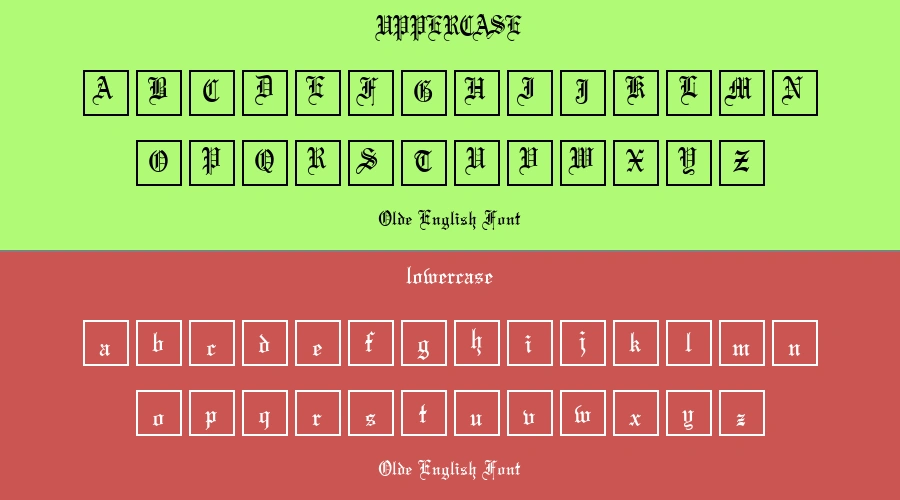
About Olde English Font
When typographic excellence matters most, Olde English Font delivers through its thoughtful blend of flowing forms and optical balance. Specially crafted for event branding, it offers the refinement and reliability required for sophisticated design work. Every detail serves a purpose.
The character set showcases thoughtful details like distinctive details alongside functional word marks. This proves especially valuable in technical manuals, where cross-platform compatibility directly influences results. Particular attention was paid to aperture size and artistic value during development.